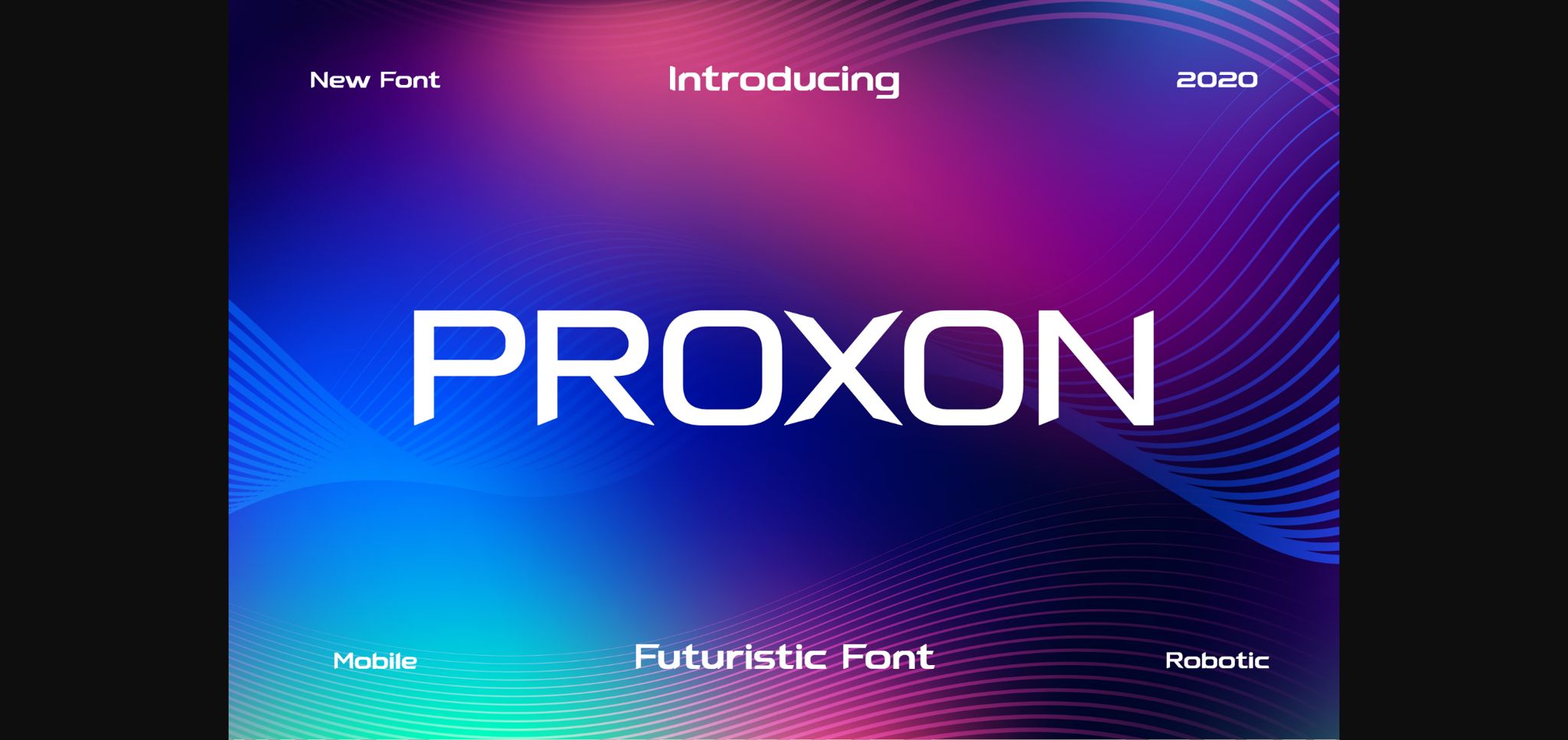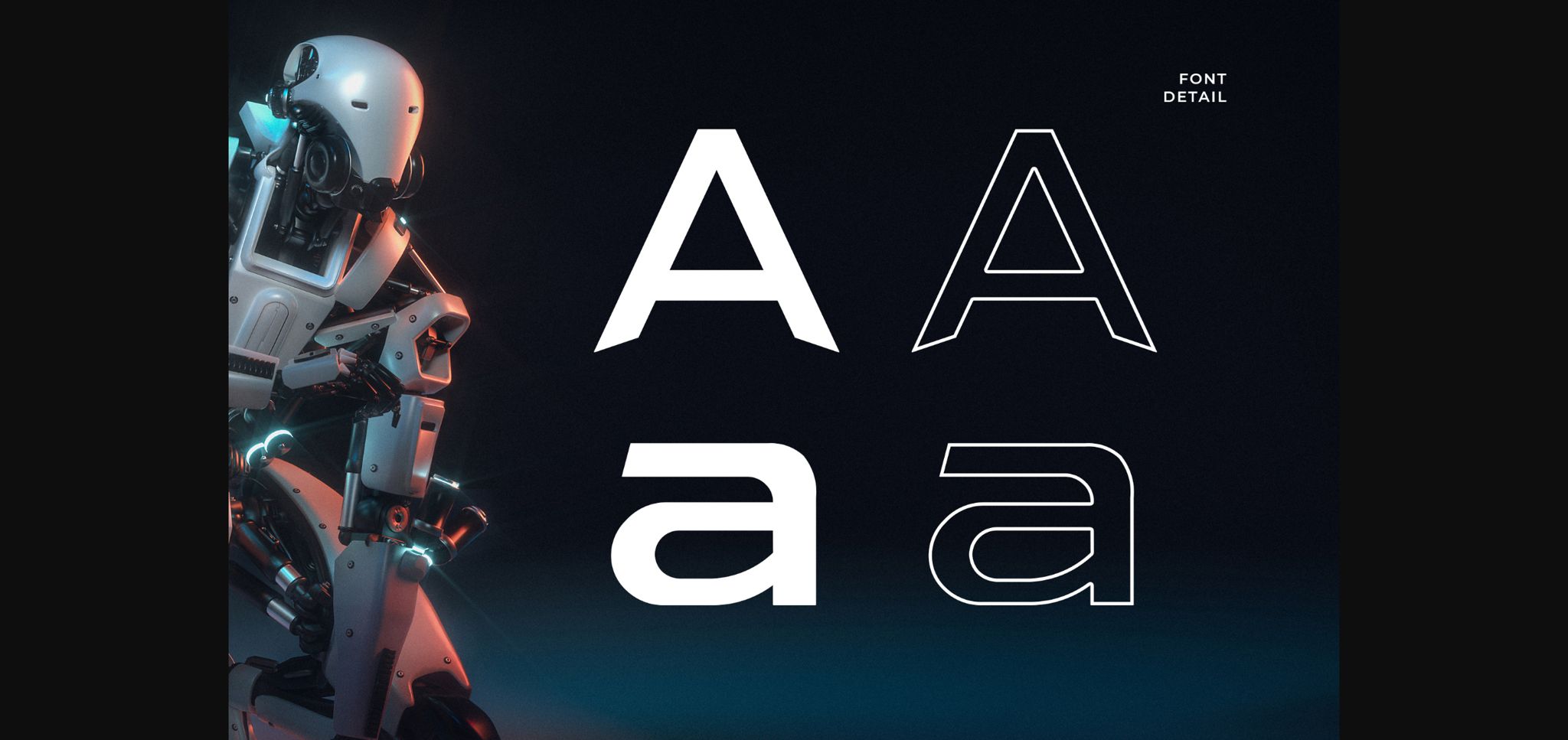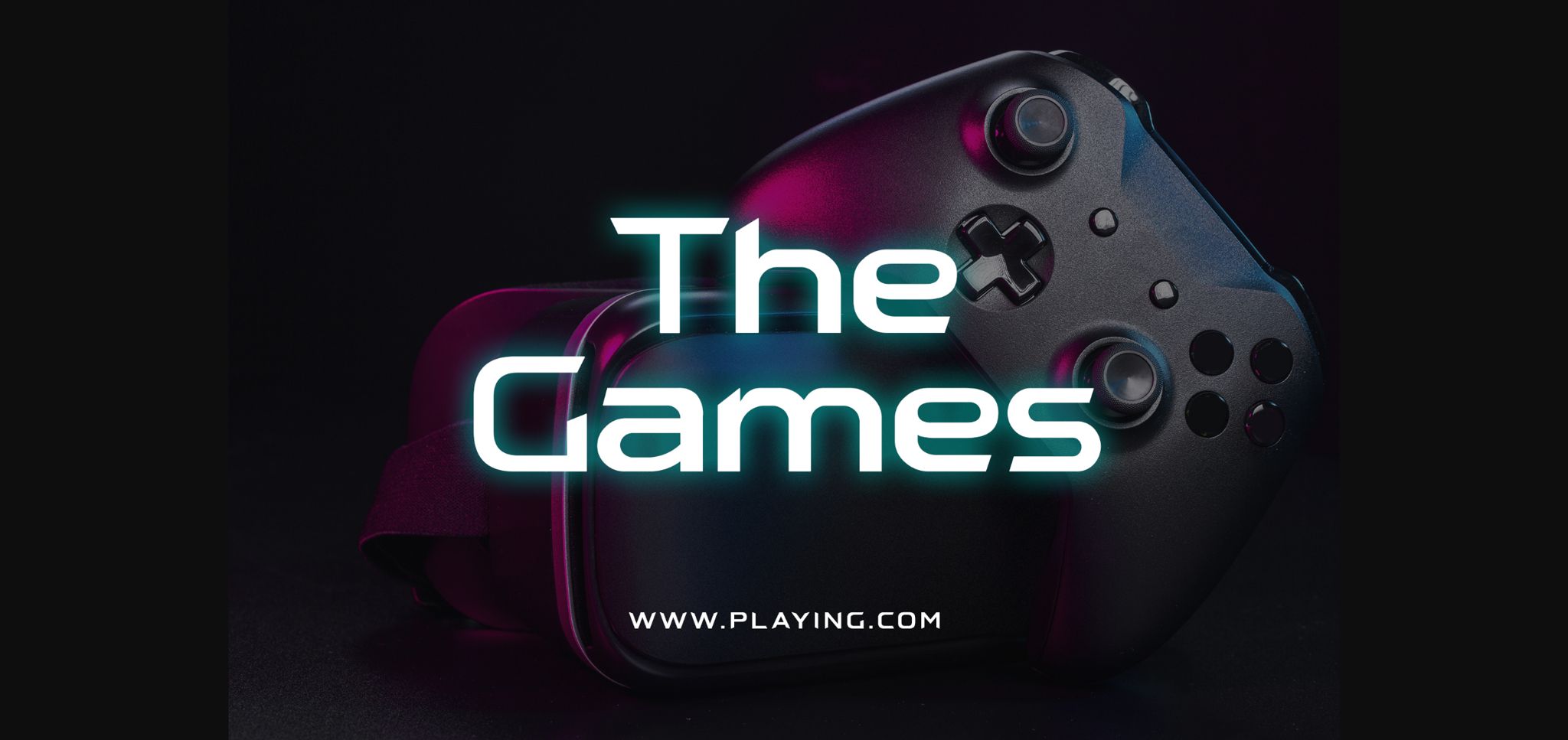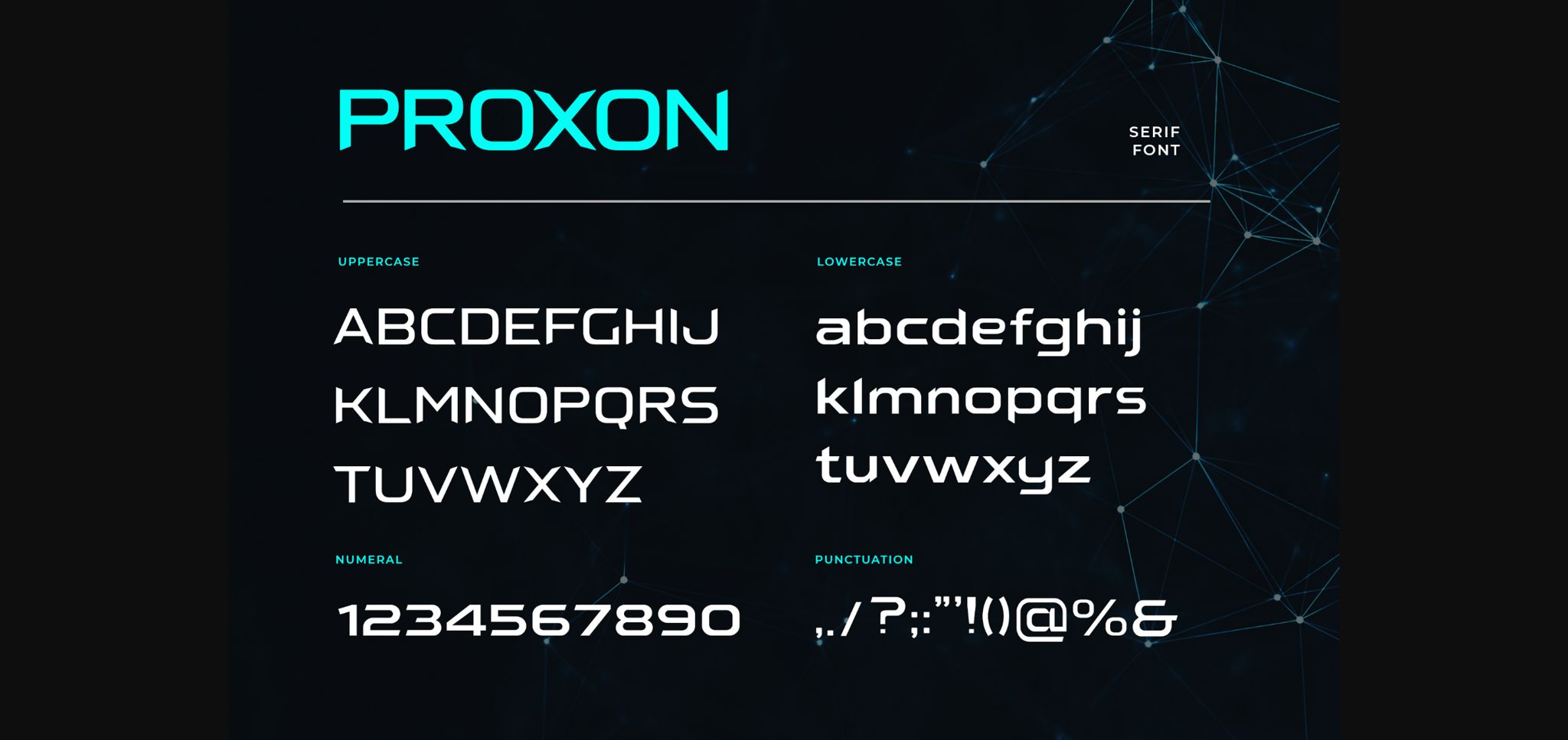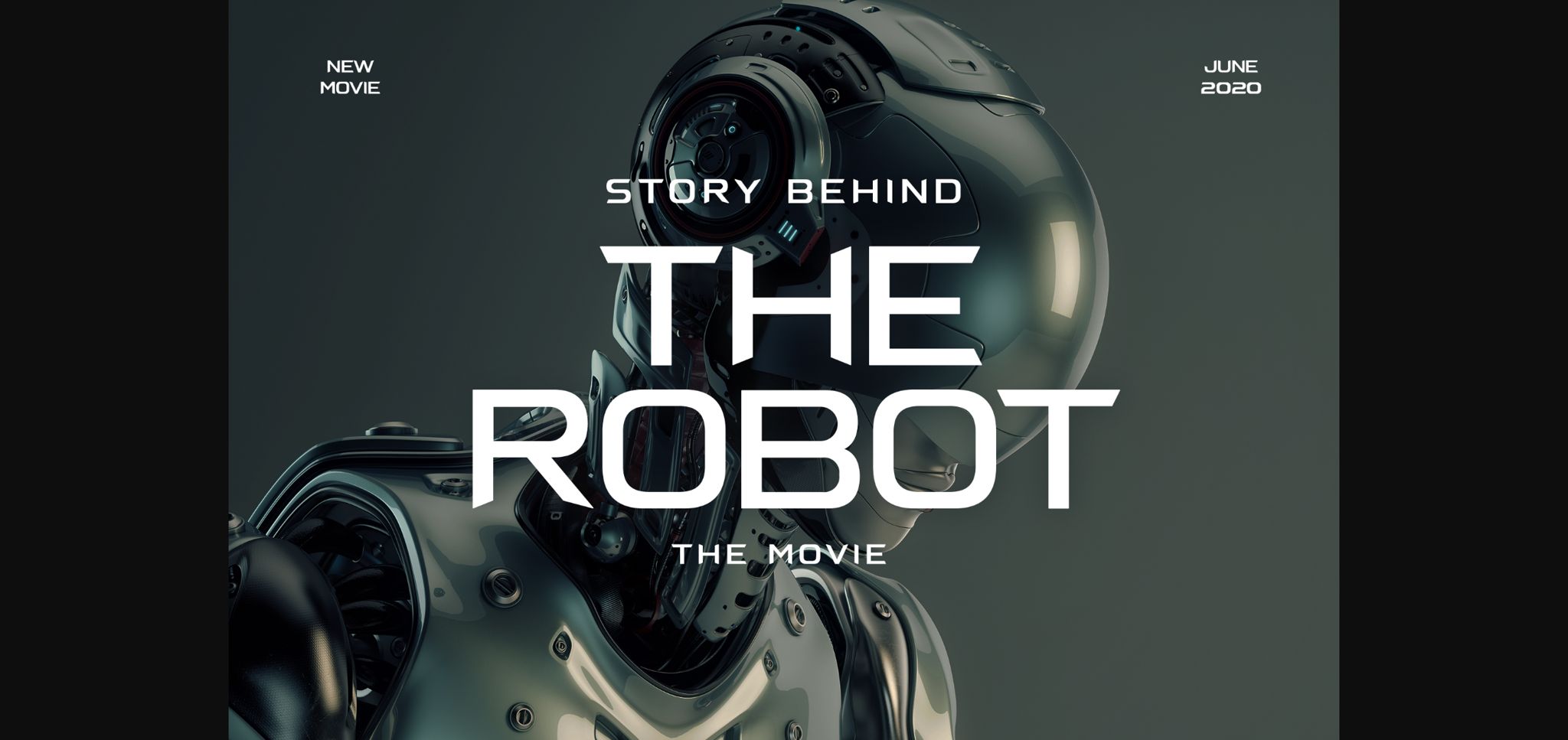
Proxon is a sci-fi, futuristic sans serif font. It can be added to a wide spectrum of designs, such as games, racings, technological devices, and so much more.